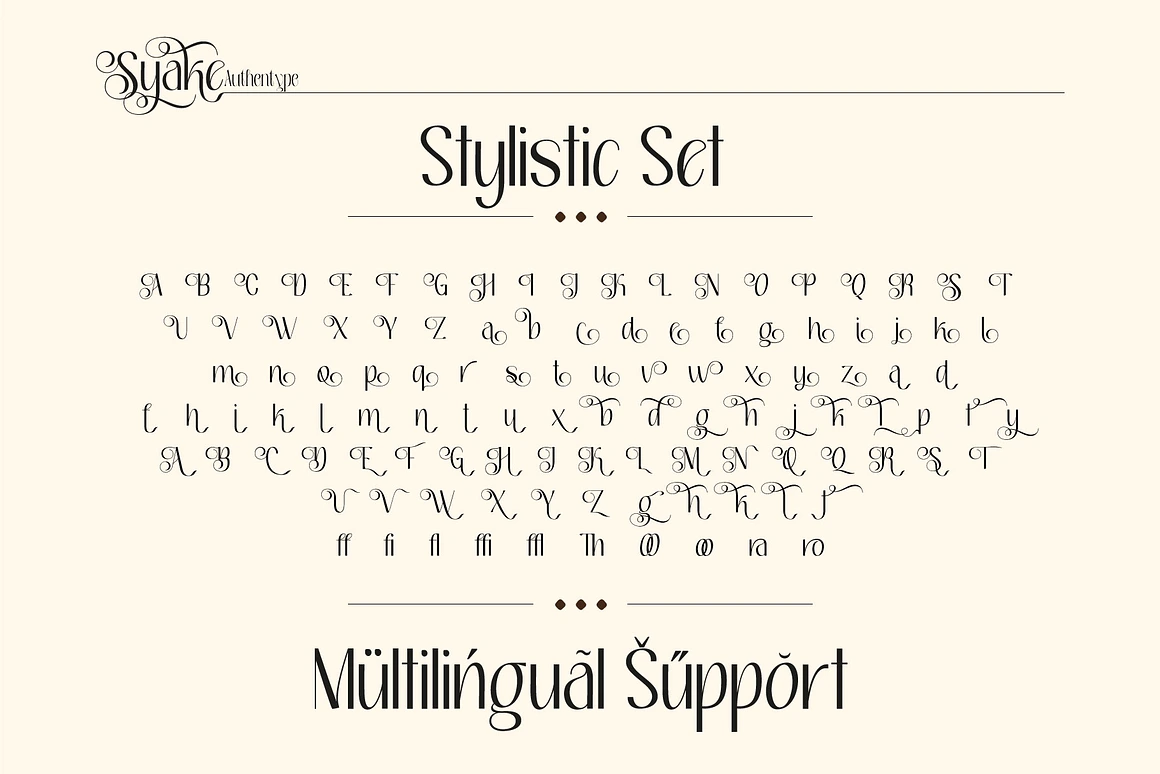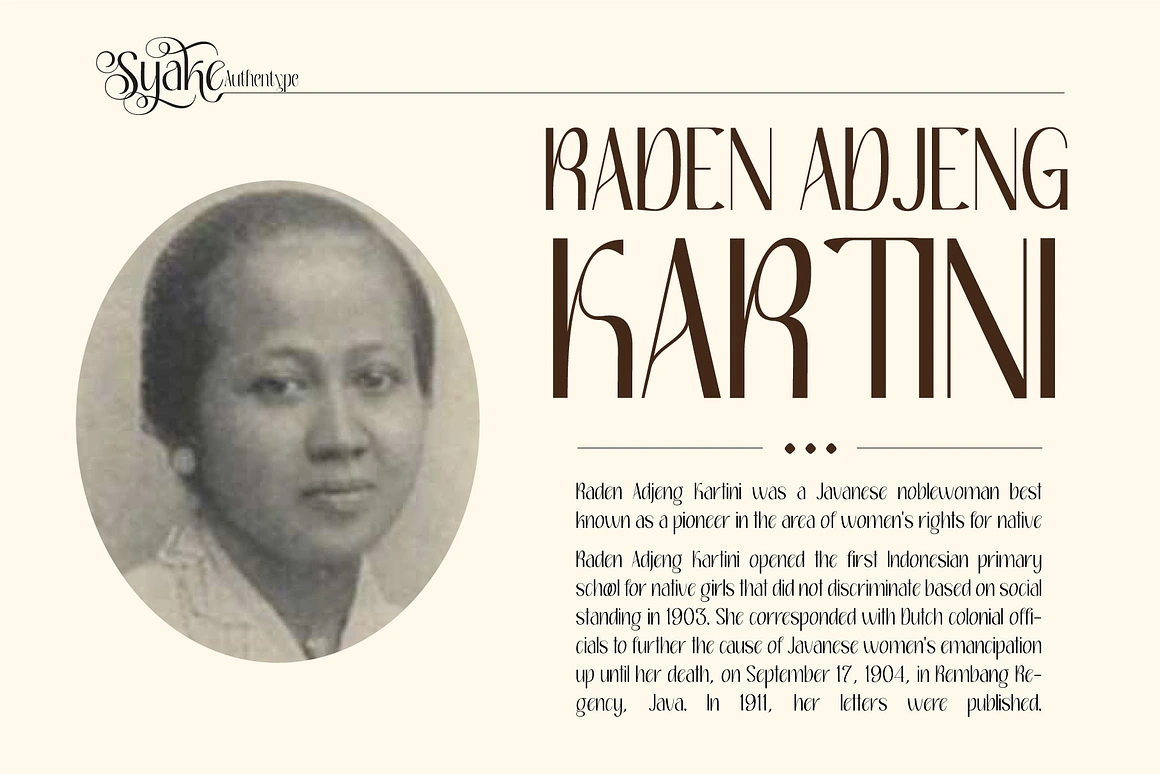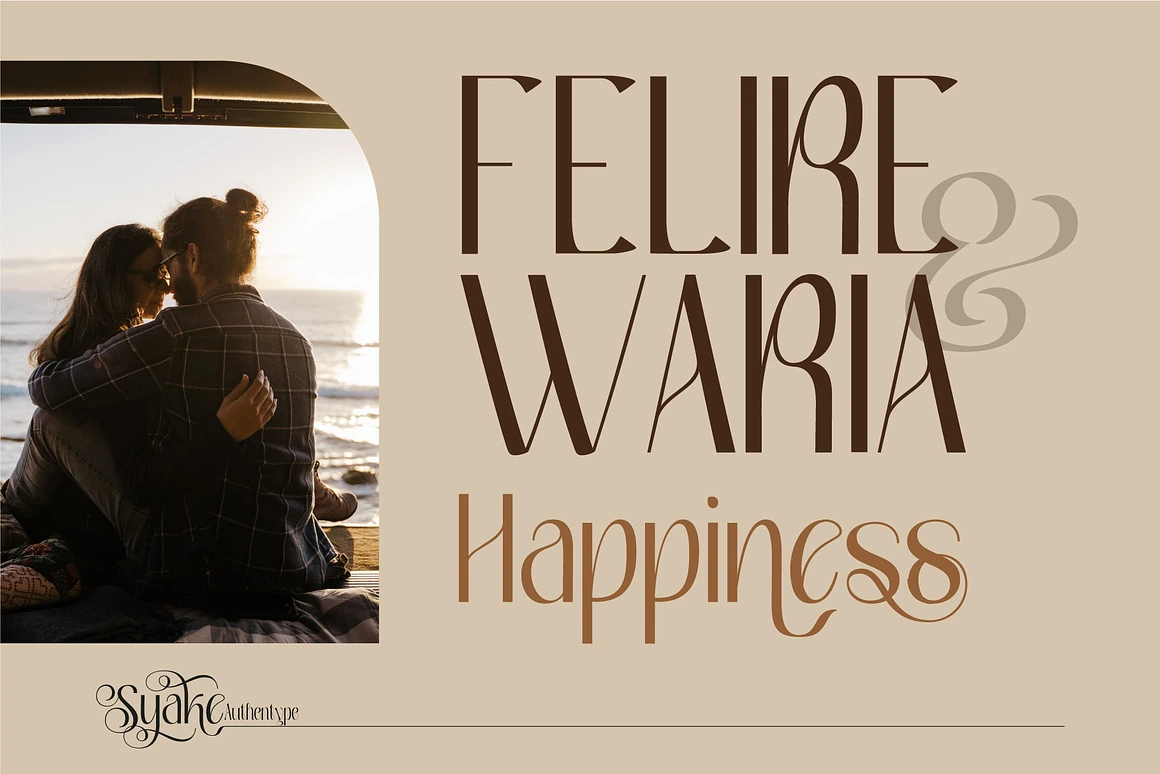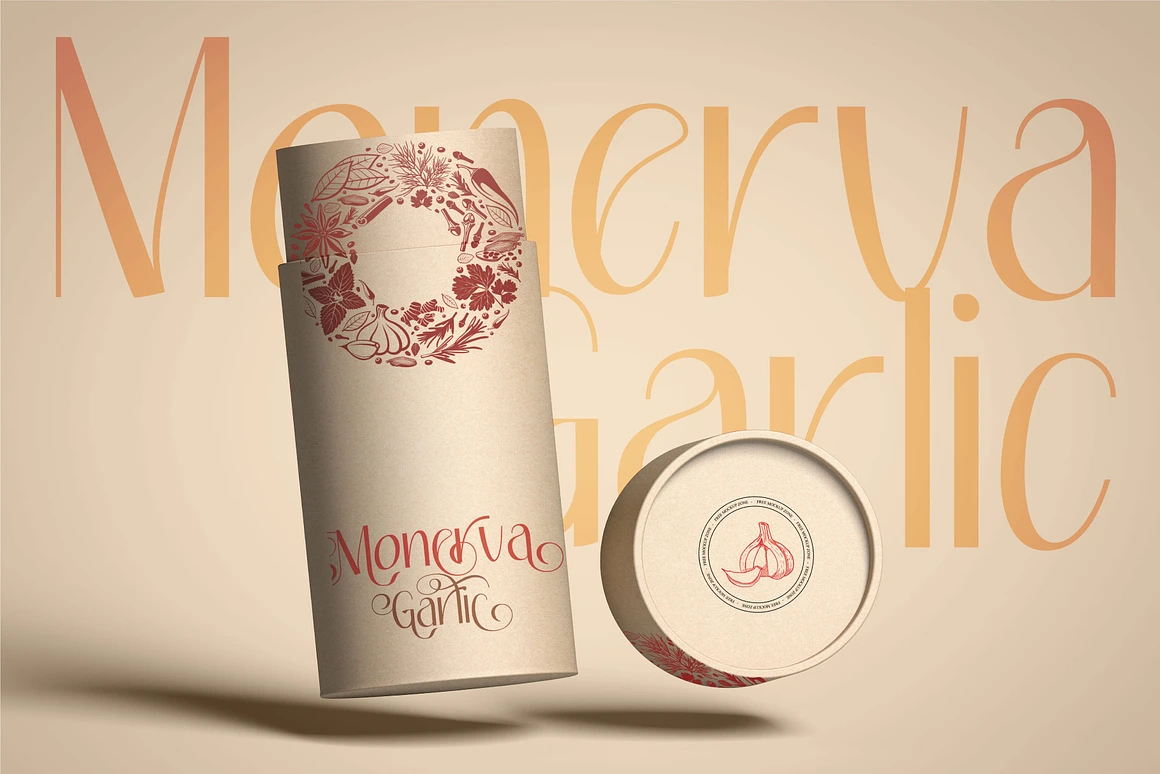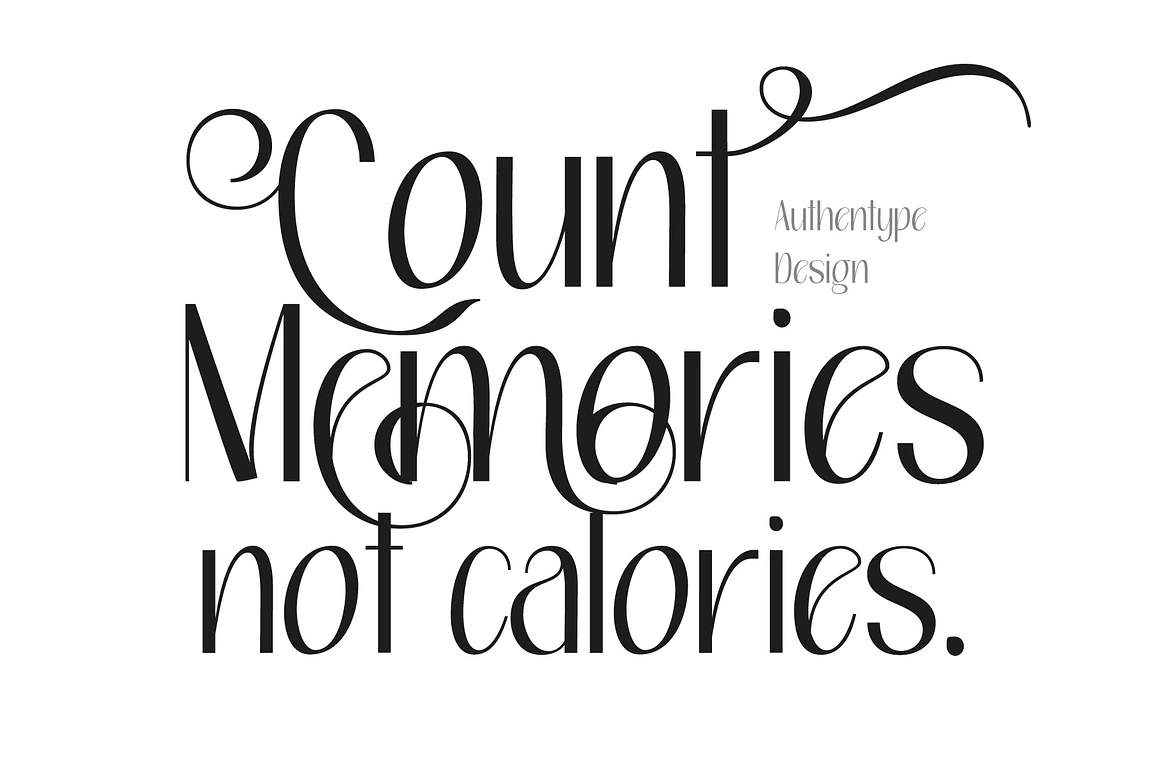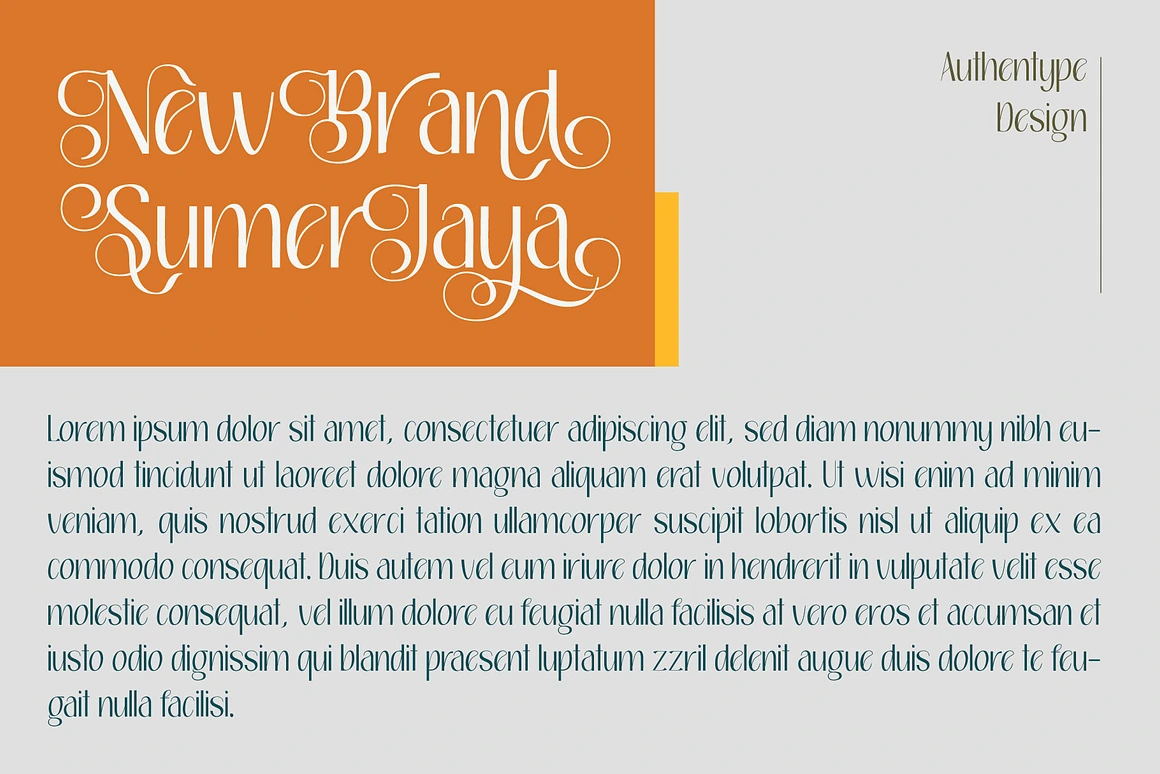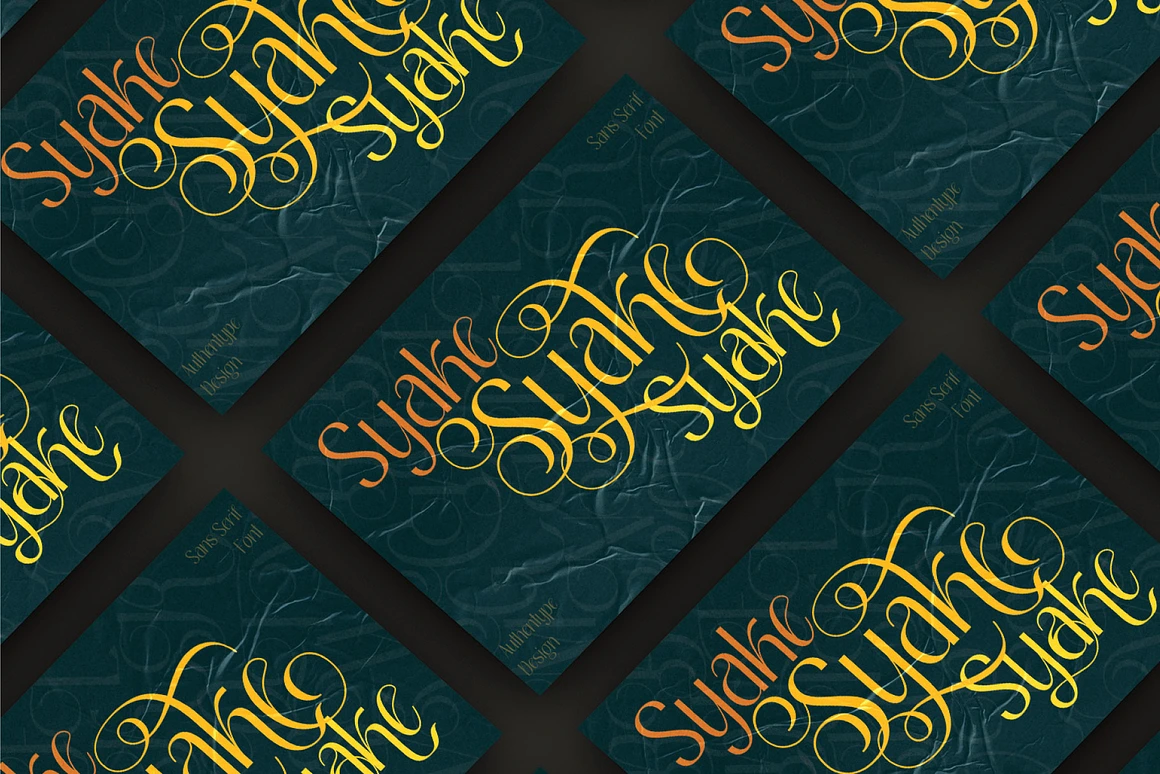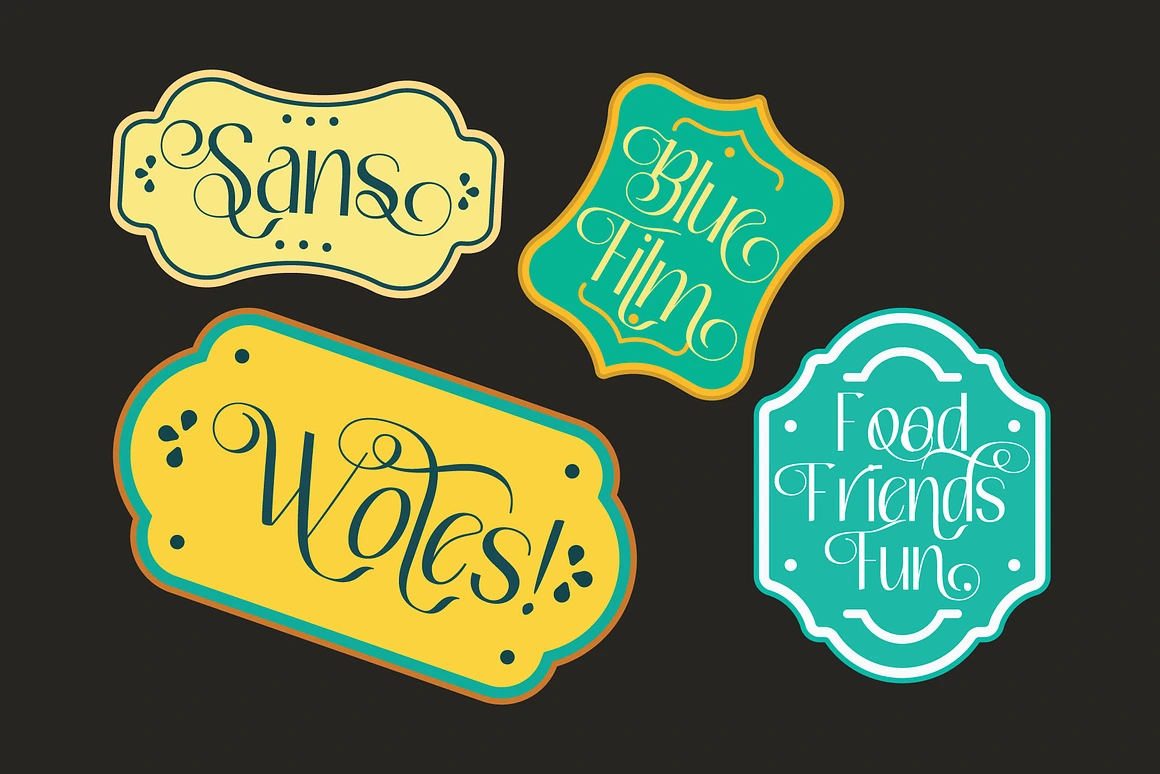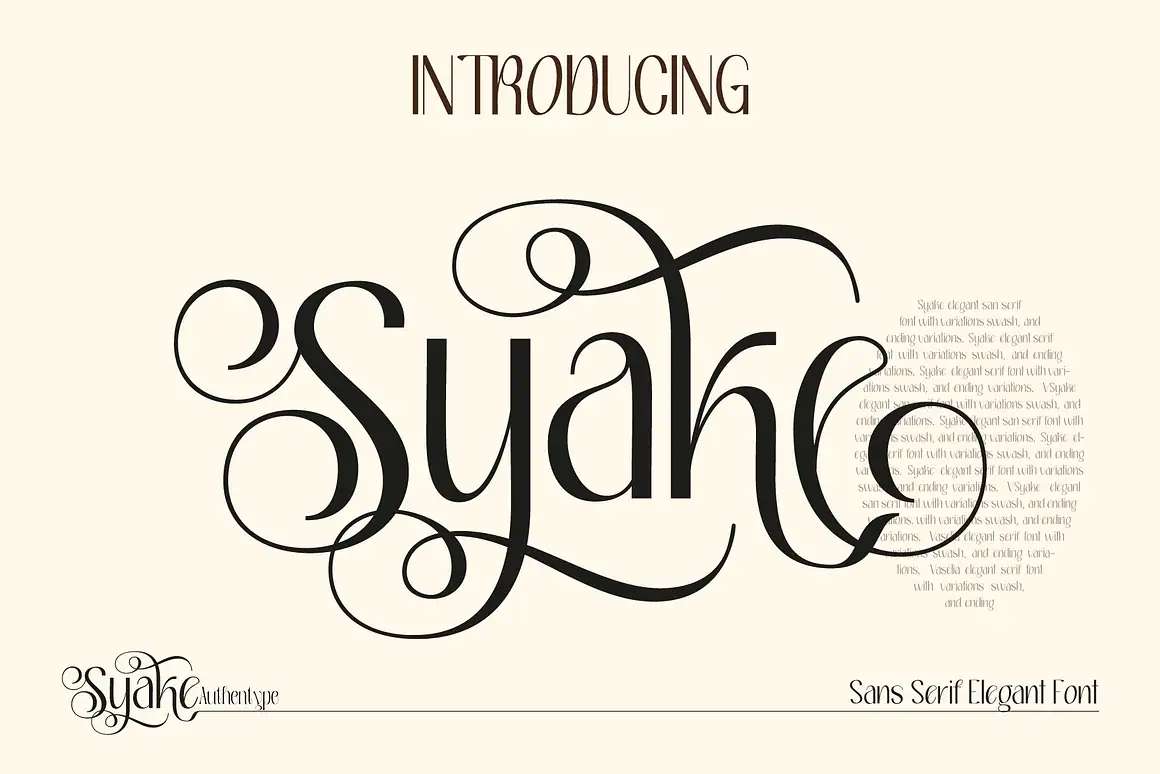
Syake – Beauty Branding Font
Syake
Syake is an beauty branding font featuring a complete set of uppercase and lowercase letters, multilingual symbols, numbers, punctuation, and beautiful ligatures. Designed with refined curves and balanced proportions, Syake is perfect for poster design, magazines, beauty branding, and editorial projects that require a touch of sophistication. Its variety of glyphs, including graceful ending swashes, makes it ideal for creating unique, elegant typographic compositions.
Features of Syake beauty branding font
Uppercase & lowercase standard glyphs
Numerals, punctuation, and stylish ligatures
Lowercase letters with elegant ending swashes
Multilingual support: ä ö ü Ä Ö Ü ß ¿ ¡ and more
Perfect For
Beauty & fashion branding
Editorial & magazine layouts
Wedding invitations & stationery
Luxury product packaging
Elegant poster & logo design